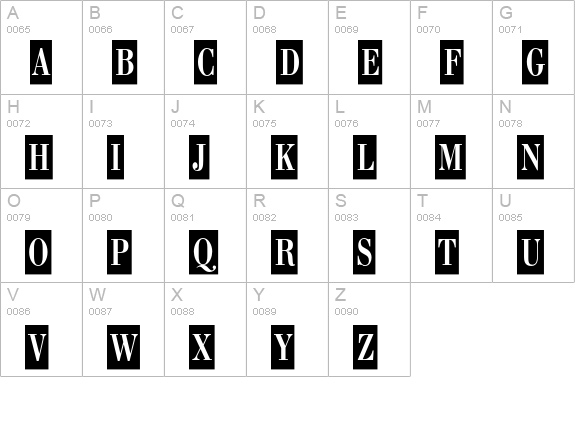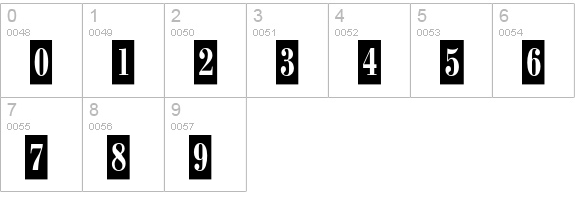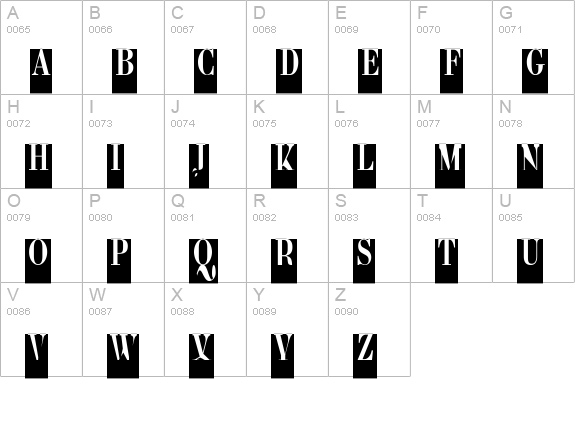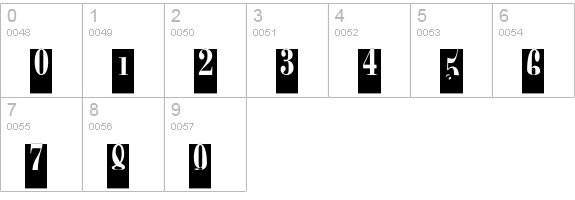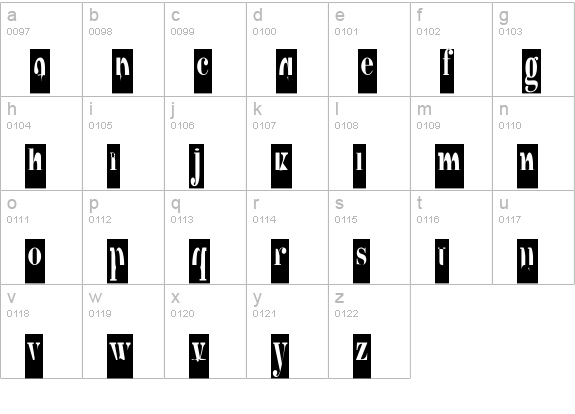
PT Bodoni Condensed Cameo Cyrillic Font Details
PT Bodoni Condensed Cameo Cyrillic is a distinctive, condensed-width variant in the PT typeface family \xE2\x80\x94 well suited to design and typography projects.
The PT Bodoni Condensed Cameo Cyrillic font is a stunning and elegant typeface that exudes sophistication and style. With its condensed design and intricate cameo detailing, this font is perfect for adding a touch of class to your designs. The Cyrillic characters give it a unique and exotic flair, making it ideal for projects that require a touch of international charm. Best of all, this exquisite font is available for free download at FontsMarket.com. Whether you're working on a print design project, a website, or any other creative endeavor, the PT Bodoni Condensed Cameo Cyrillic font is sure to make a bold statement and elevate your work to the next level. Download it today and add a touch of luxury to your designs!